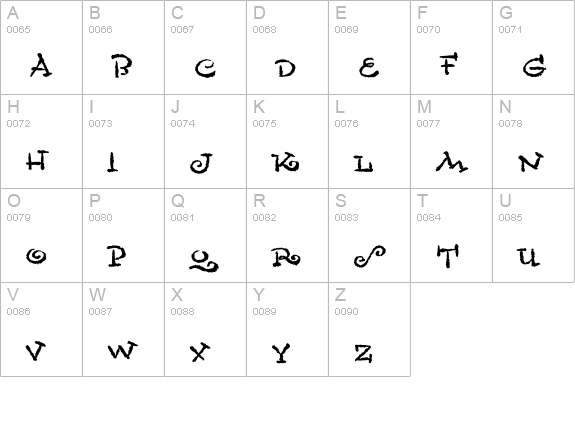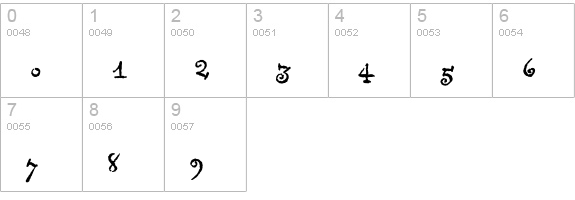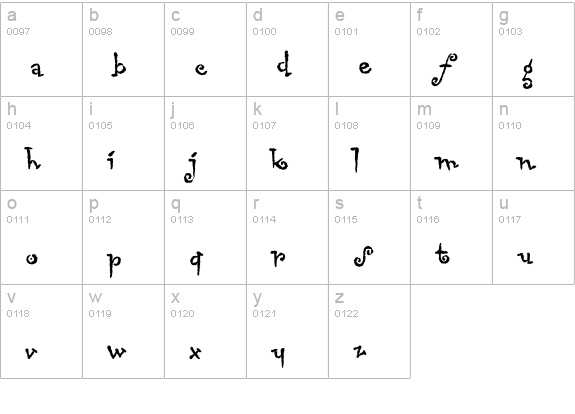
Chascarillo font is a charming and elegant typeface that exudes sophistication and style. With its delicate curves and graceful letterforms, this font is perfect for adding a touch of elegance to any design project. Whether you're creating wedding invitations, branding materials, or promotional materials, Chascarillo font is sure to make a lasting impression. The best part? Chascarillo font is completely free to download at FontsMarket.com. So you can add this beautiful font to your collection without breaking the bank. Don't miss out on the opportunity to enhance your designs with the timeless beauty of Chascarillo font. Download it today and start creating stunning designs that stand out from the crowd.